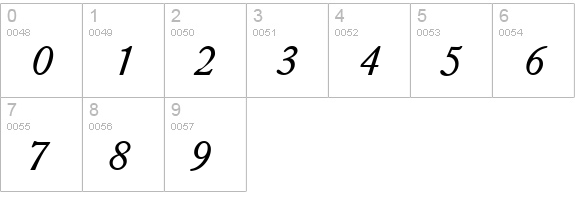
S790-Roman-Italic Font Details
S790-Roman-Italic is a distinctive, italic variant in the S790 typeface family \xE2\x80\x94 well suited to design and typography projects.
The S790-Roman-Italic font is a stylish and elegant typeface that exudes sophistication and classic charm. Its sleek and slender italics bring a touch of luxury to any design project, making it perfect for adding a touch of refinement to invitations, logos, and editorial layouts. The font's clean lines and graceful curves make it a versatile choice for both print and digital applications. Best of all, this exquisite typeface is available for free download at FontsMarket.com. Whether you're a professional designer or a hobbyist looking to elevate your projects, the S790-Roman-Italic font is a fantastic addition to your font collection. Download it today and add a touch of timeless elegance to your designs.